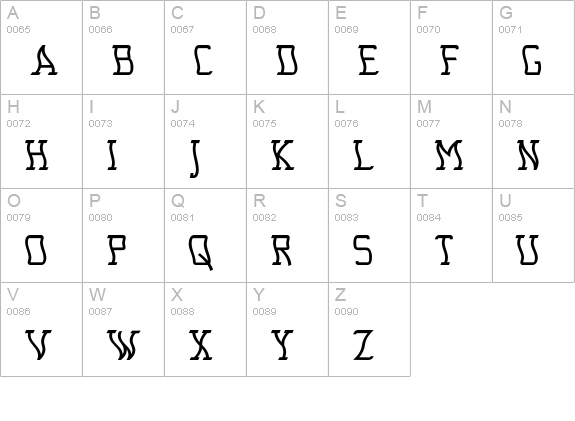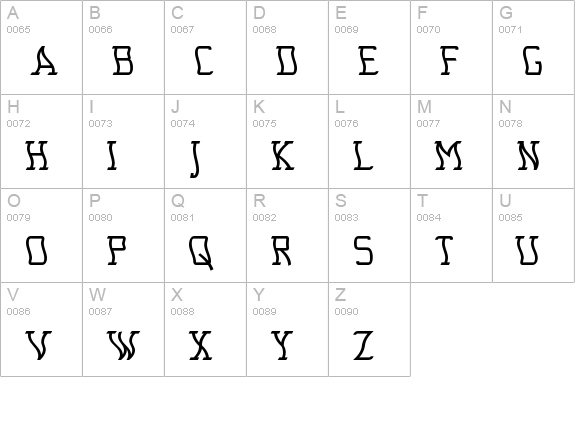
Seasick Bold Font Details
Seasick Bold is a strong, high-contrast variant in the Seasick typeface family \xE2\x80\x94 well suited to headlines, attention-grabbing titles, and strong calls-to-action.
Seasick Bold font is a striking and attention-grabbing typeface that is perfect for adding a touch of boldness to your designs. With its strong and powerful letterforms, Seasick Bold demands attention and makes a statement. This font is ideal for a wide range of projects, from headlines and logos to posters and branding materials. Its unique and distinctive style ensures that your designs will stand out from the crowd and leave a lasting impression. One of the best things about Seasick Bold font is that it is freely available to download at FontsMarket.com. This means that you can easily access and use this font for your personal and commercial projects without any restrictions. Whether you are a professional designer or just starting out, Seasick Bold font provides you with a high-quality and versatile typeface that can elevate your designs to the next level. With its bold and impactful appearance, Seasick Bold font is especially well-suited for designs that require a strong and confident aesthetic. Its clean and legible letterforms ensure that your message will be communicated clearly and effectively, while its bold and dynamic strokes add a sense of energy and vitality to your designs. So why wait? Download Seasick Bold font for free at FontsMarket.com and unleash its power in your designs. Whether you need to create eye-catching headlines, attention-grabbing posters, or captivating logos, Seasick Bold font is the perfect choice to make your designs stand out and leave a lasting impression.